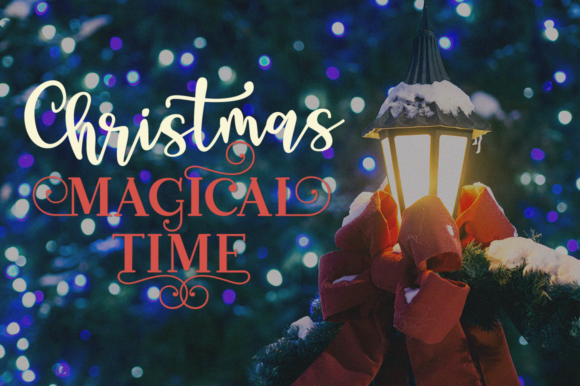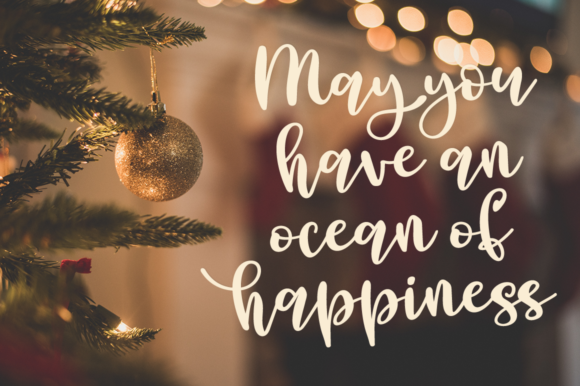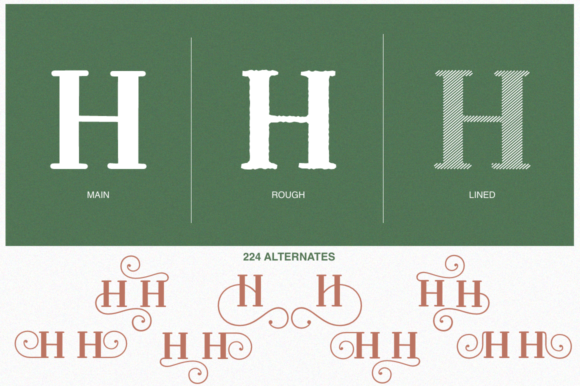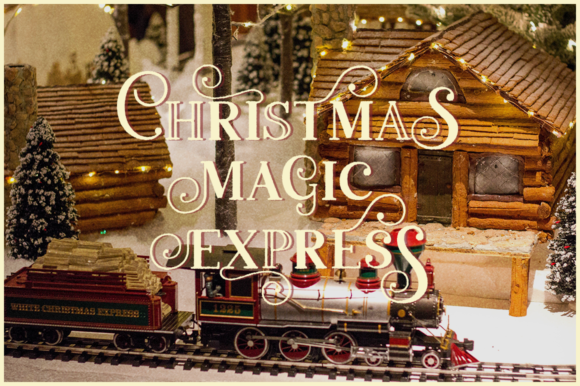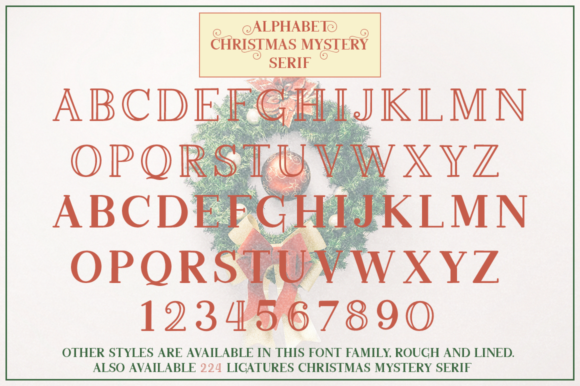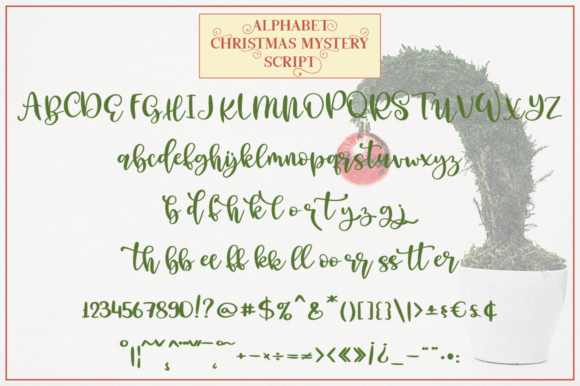
Introduction to Christmas Mystery Family Font
The Christmas Mystery is a fun holiday family.
It comes with several styles that fit perfectly together and will help to make your designs more complete and bright Add a touch of winter elegance to your designs with this beautiful family.
Key Features of Christmas Mystery Family Font
Why Choose Christmas Mystery Family Font?
Christmas Mystery Family Font offers exceptional quality and versatility, making it a valuable addition to your design toolkit. Whether you’re creating for personal projects or commercial use, Christmas Mystery Family Font delivers professional results.